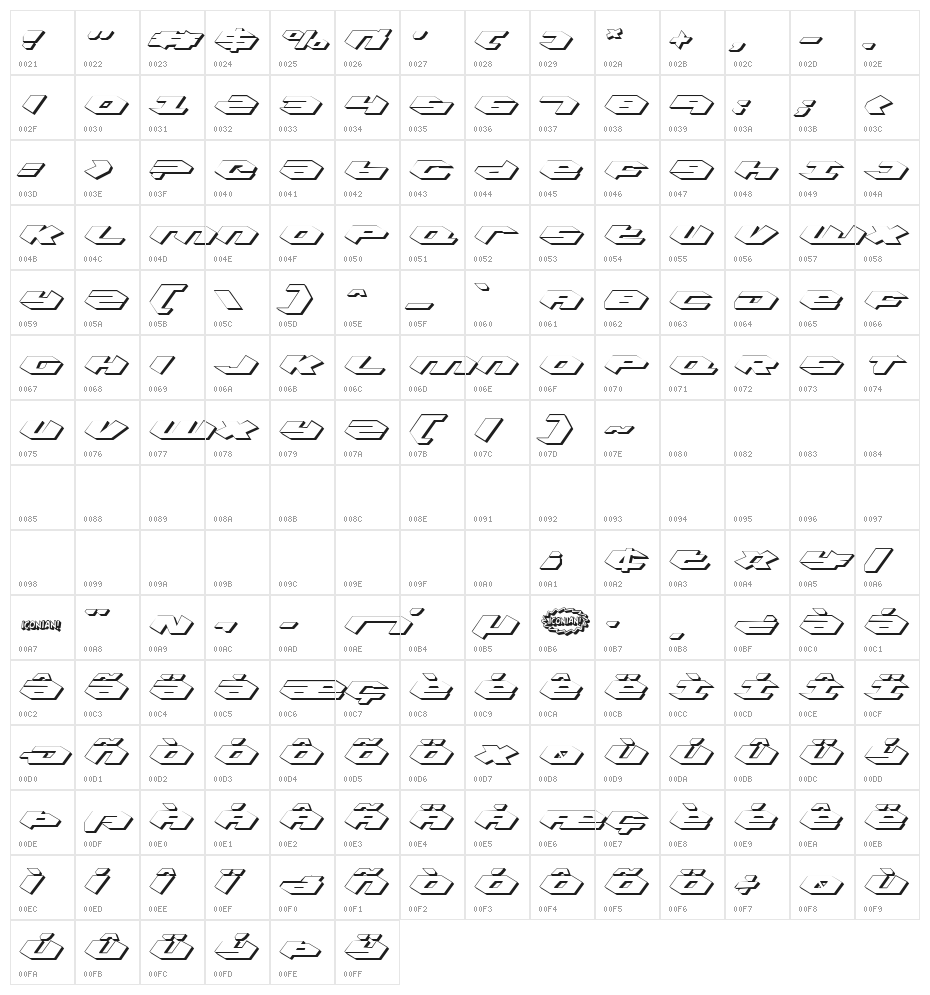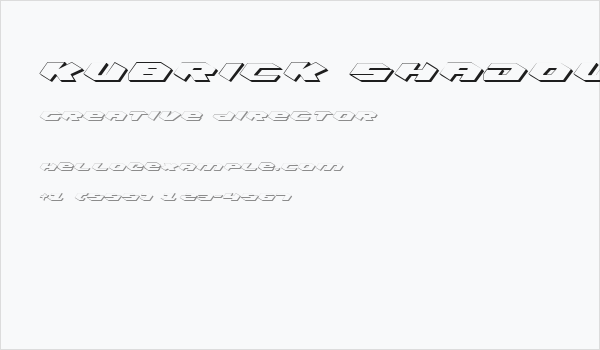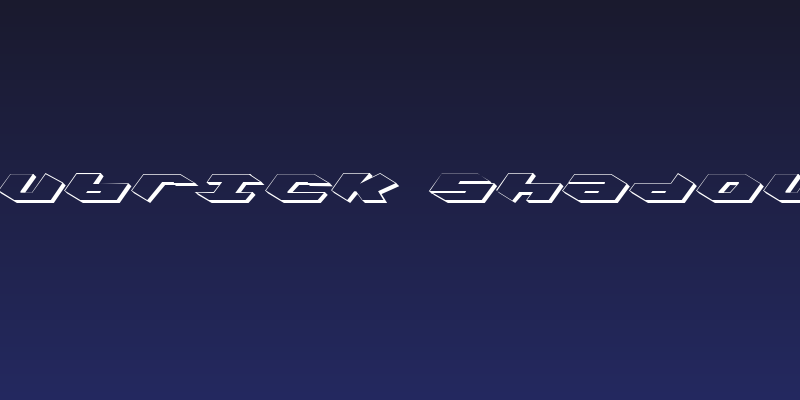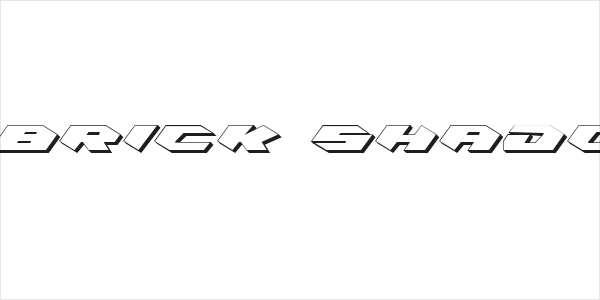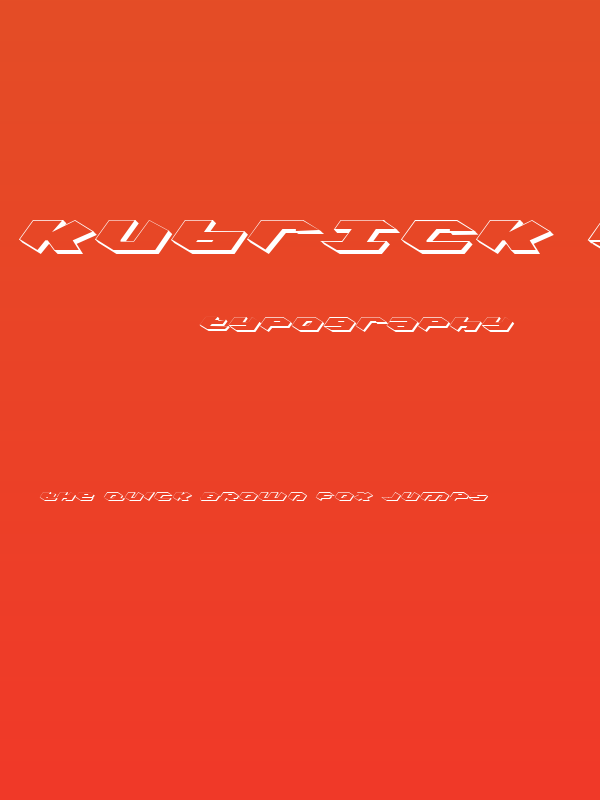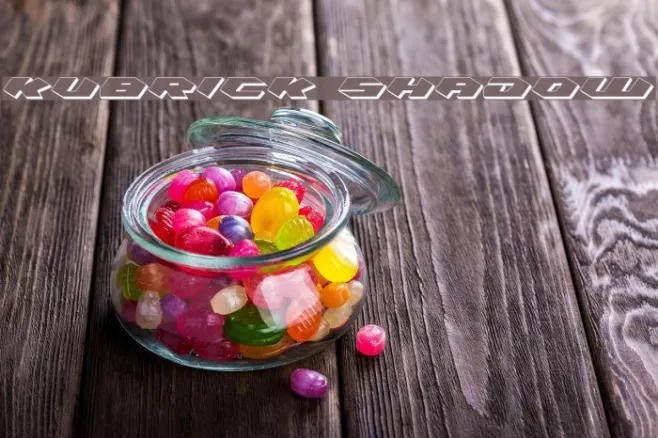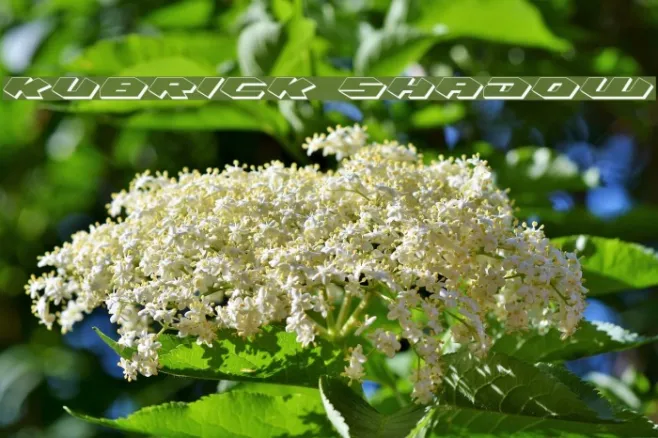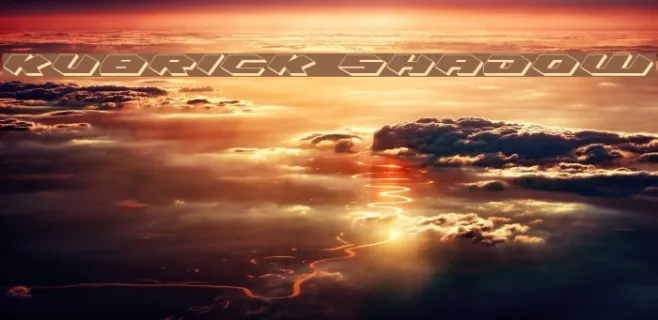
Kubrick Shadow Font
Kubrick Shadow Description
This font features a bold, geometric design with a distinct three-dimensional shadow effect. The characters are angular and futuristic, with sharp edges and a consistent slant that gives a sense of movement and depth. The uppercase and lowercase letters maintain a uniform style, enhancing the cohesive look of the typeface. Numbers and special characters are crafted with the same attention to detail, ensuring versatility across various applications. The shadow effect adds a layer of complexity, making it ideal for eye-catching designs.
| Proposed Projects | Ideal for sci-fi themed posters, video game titles, tech branding, and modern advertisements. |